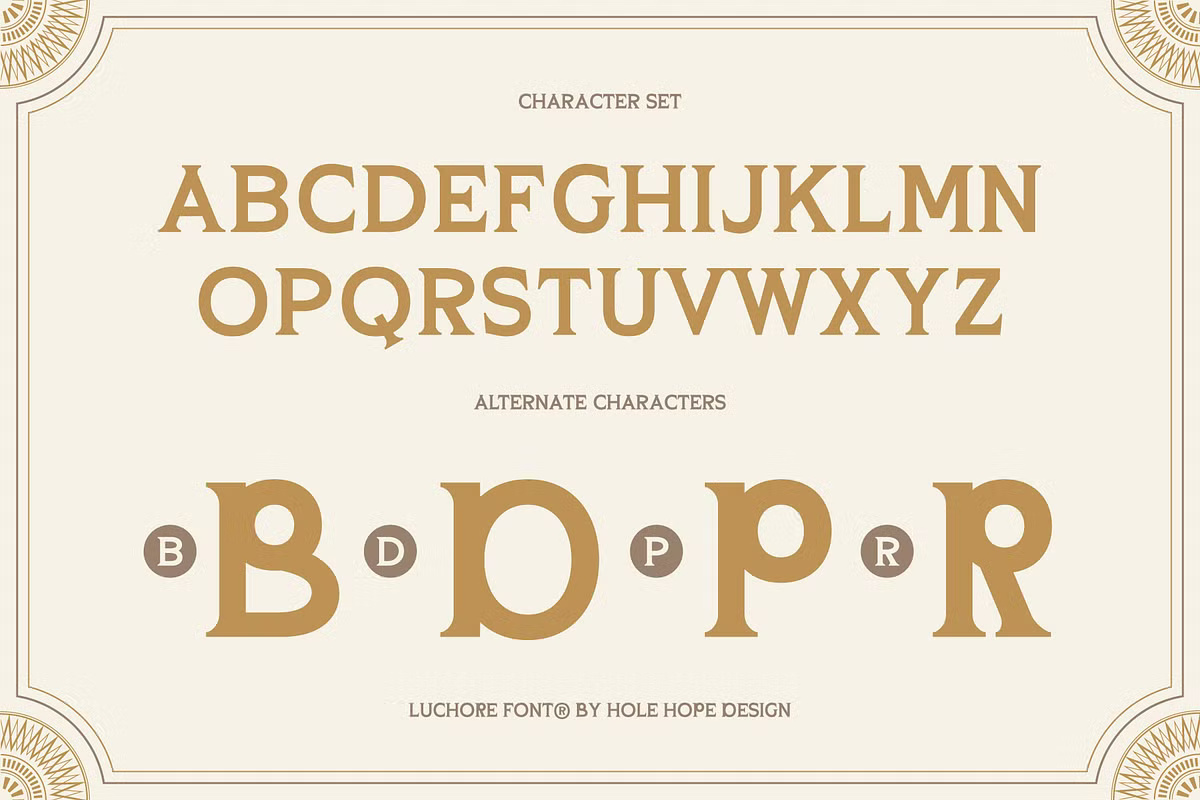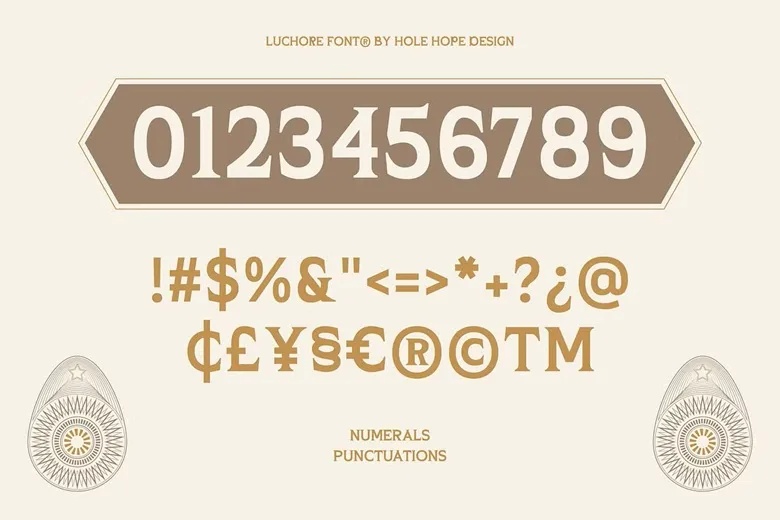
Luchore Font
Luchore is a unique blend of elegance and innovation, designed to bring out the best in your Easter Day style. With its well-balanced geometric structure and subtle serifs, Luchore exudes both sophistication and warmth—making it the perfect choice for holiday cards.
Ideal for exhibitions and events, Luchore adds a charming and cheerful touch to your Easter-themed designs and greetings.